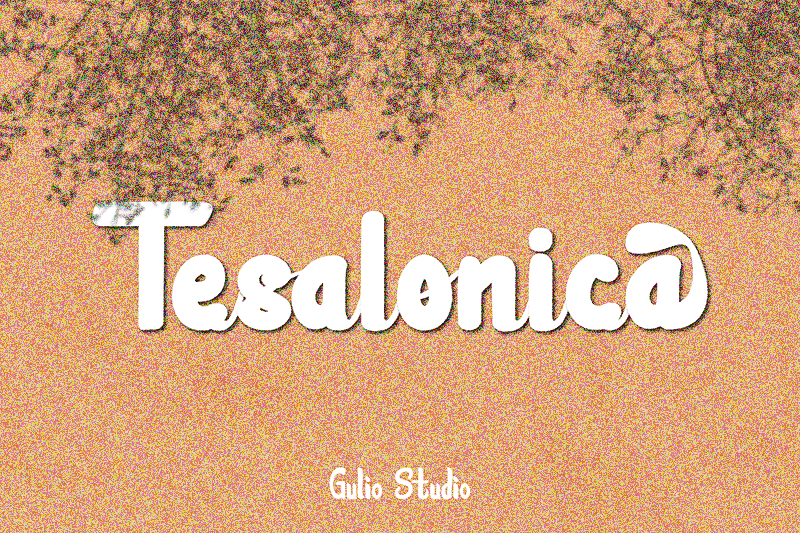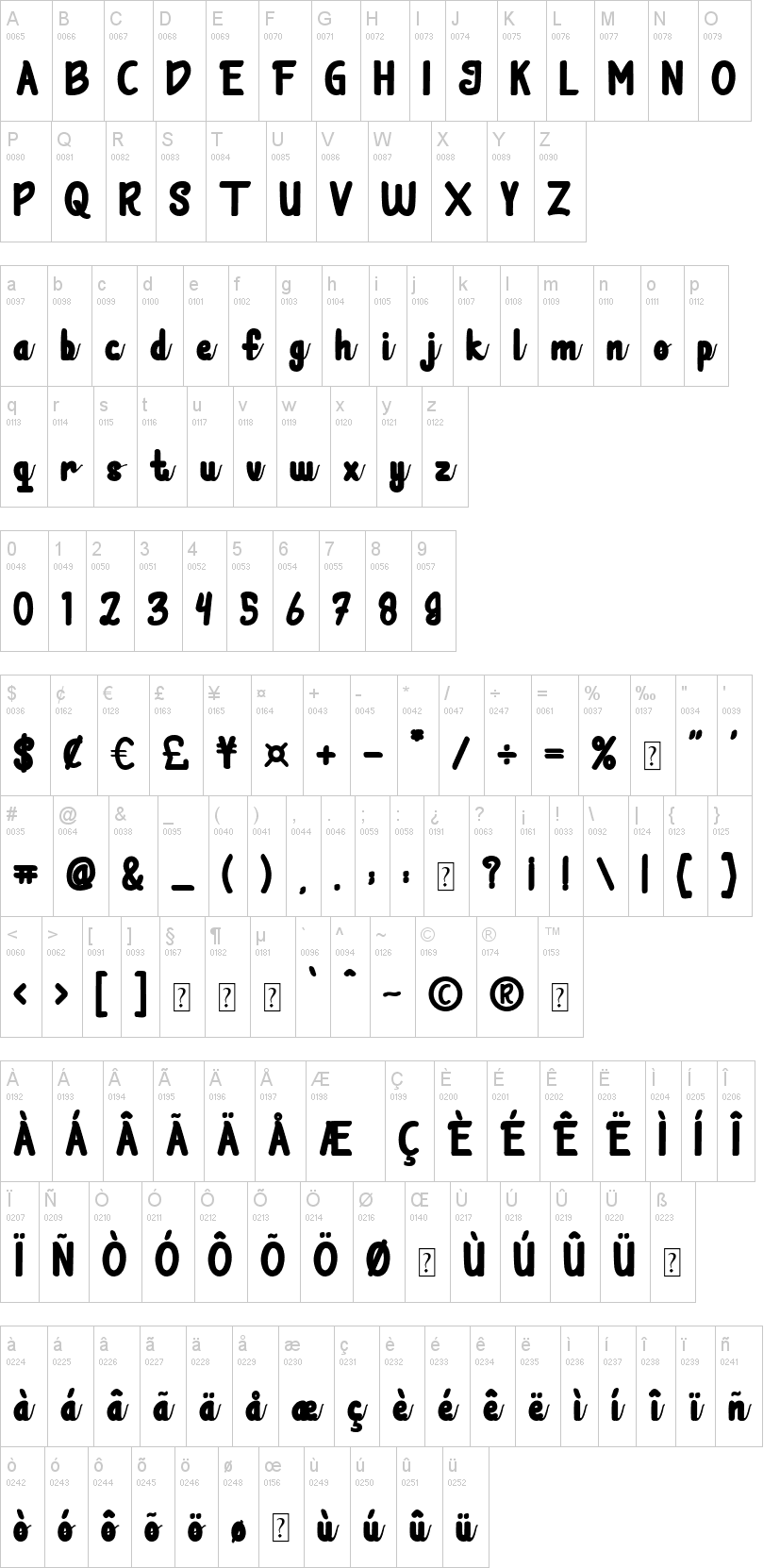
introduce our newest font Tesalonica Font with a unique script style, which is a thick main line and a connecting line that is made thin to create an elegant impression.
-Lowercase & Upercase
-Alternative character
-Numbers & Punctions
-Multilingual Support